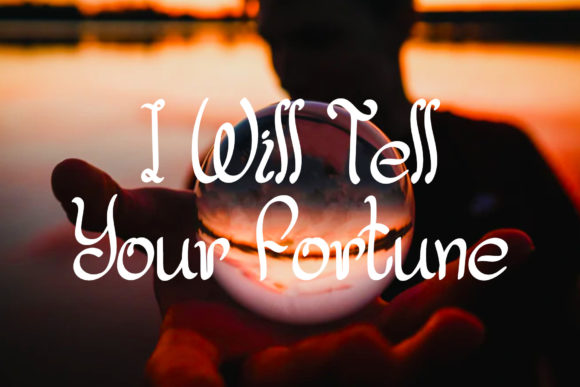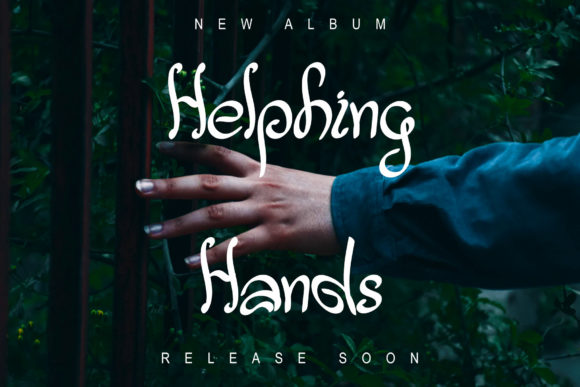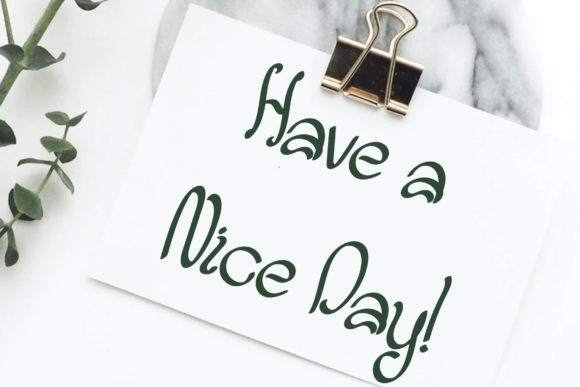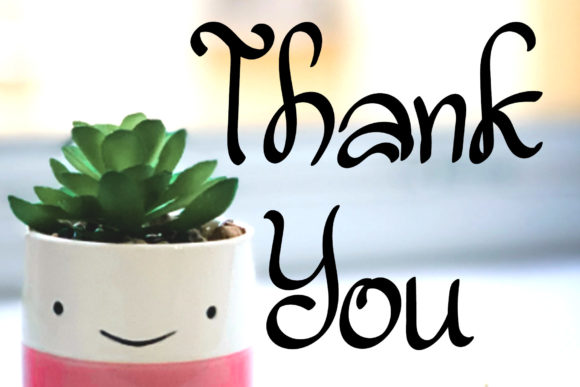
Introduction to Night at Frankfurt Font
Night At Frankfurt is a cute, dainty and neat handwritten font.
Its sweet and full of life style makes this font a wonderful choice for brightening up your designs .
Key Features of Night at Frankfurt Font